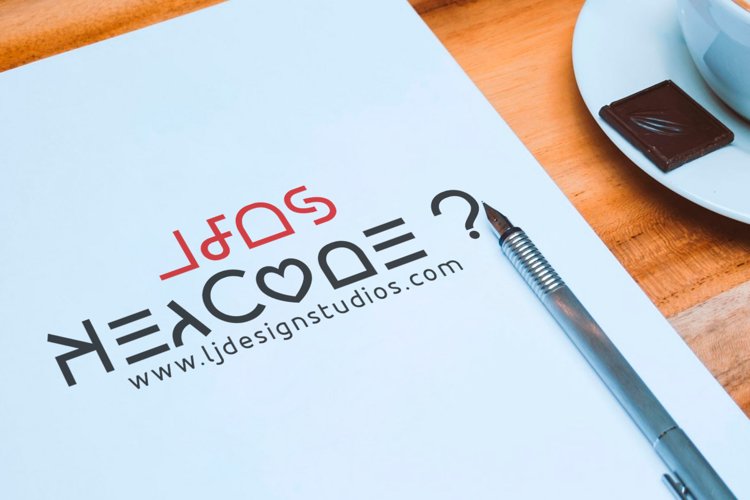
It is a traditional alphabet created in schools (possibly in Colombia) which was used to send letters written by hand, to classmates. The objective was to be able to write a paper without people who understood the language they knew that it was written on the sheets in case it came to fall into their hands by mistake.
Now it has been around for around 13 years and LJDS takes the initiative to convert this alphabet into a digital typographic font.
Imagine what you can do by having another alternative from key sources.